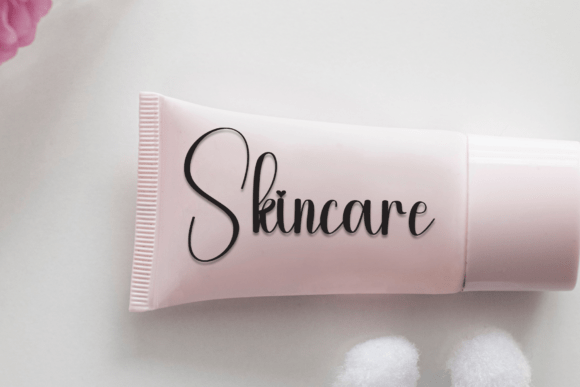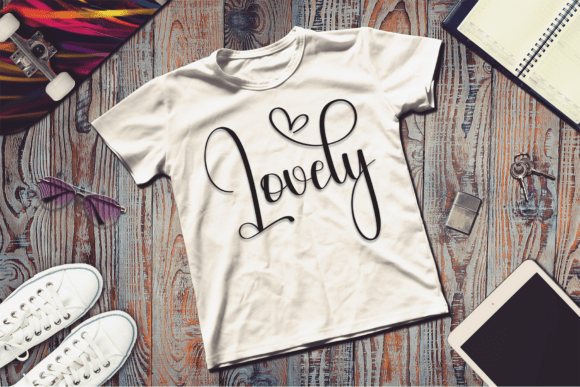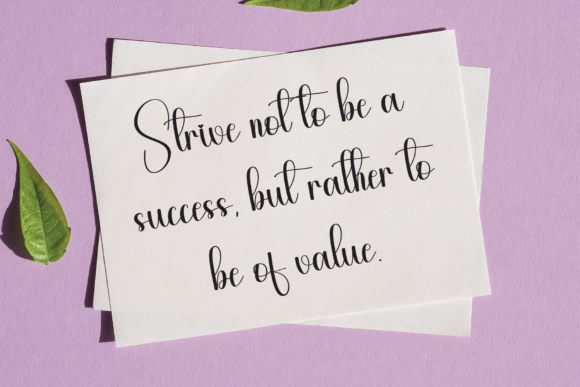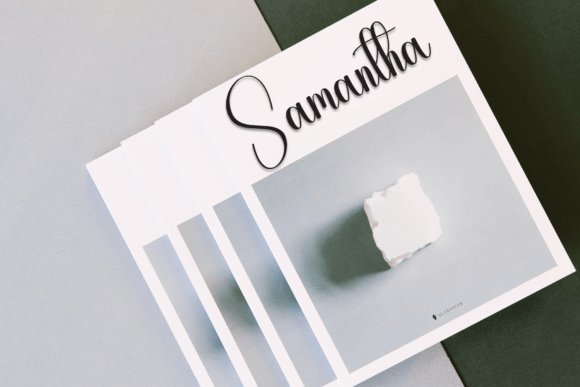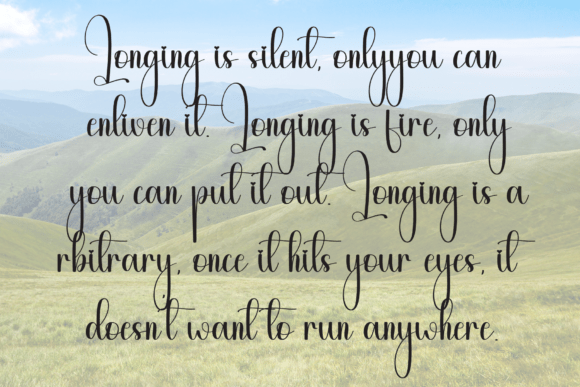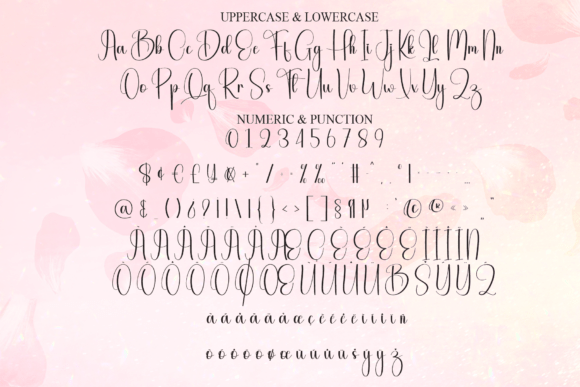
The Allure of the Barbie Font: Adding Elegance to Your Designs
Have you ever been browsing through a magazine or scrolling through social media and stumbled upon a design that just stops you in your tracks? Maybe it was a beautifully crafted invitation, a logo that perfectly captured a brand’s personality, or a social media post that radiated charm and sophistication. Whatever it was, you probably couldn’t help but wonder, “How did they do that?” For many designers, the answer lies in the Barbie Font – a stylish handwritten script font that adds a touch of elegance and playfulness to any project.
The Barbie Font is a versatile tool that brings warmth, sophistication, and creativity to invitations, branding, and social media. With its flowing curves and natural rhythm, it’s perfect for adding a personal touch to any design. Whether you’re a seasoned designer or just starting out, the Barbie Font is a valuable asset that can help you elevate your work and make a lasting impression on your audience.
Barbie Font Key Features
- Font Family: The Barbie Font is a custom, cursive script font designed specifically for the Barbie brand.
- Size: Supports a wide range of font sizes, from 6pt to 72pt, making it suitable for various design applications.
- Resolution: Designed for high-resolution displays, with a minimum recommended resolution of 96 DPI (dots per inch).
- Unique Characteristics: The font features a playful, whimsical feel, with intricate details and flourishes that evoke the iconic Barbie brand.
- Language Support: Supports a wide range of languages, including Latin, Greek, Cyrillic, and many others, making it a versatile choice for global design projects.
Designer Review: Barbie Font
The Barbie Font, designed by Matthew Carter, is a delightful and playful typeface. Here are some aspects where it truly shines: ✨
- Its unique and whimsical style captures the essence of the iconic Barbie brand.
- The font is highly legible, even at small sizes, making it suitable for various applications, such as packaging, advertising, and editorial content.
- The letterforms are carefully crafted to convey a sense of elegance and sophistication, while still maintaining a childlike charm.
- The font may not be ideal for more formal or professional settings, as its playful nature might come across as unprofessional.
- The font’s extensive character set might make it less suitable for certain languages or character sets.
- The font’s complexity might require additional processing power, which could impact performance in certain applications.
Overall, I think the Barbie Font is a wonderful choice for projects that require a touch of whimsy and playfulness. While it may have some limitations, its unique style and high legibility make it a great addition to any designer’s toolkit.
The Barbie Font is perfect for creating playful and whimsical designs, such as:
- Children’s party invitations
- Toy packaging designs
- Social media graphics
- Printable art and crafts
Remember to adjust the font size and style to your liking, and experiment with different combinations to get the most out of the Barbie Font.
Alternatives to Barbie Font
Great Vibes Font is a modern, cursive script font that is perfect for adding a touch of elegance to designs. It is ideal for use in headings, titles, and quotes. Great Vibes Font is more versatile than Barbie Font as it has a wider range of uses, from fashion and beauty to food and travel.
Comparison to Barbie Font: Great Vibes Font has a more sophisticated and mature feel compared to the playful and childlike vibe of Barbie Font.
Carolyna Pro Font is a elegant, modern script font that is perfect for use in high-end designs. It is ideal for use in luxury branding, fashion, and beauty. Carolyna Pro Font is more refined and sophisticated than Barbie Font, making it perfect for designs that require a touch of glamour.
Comparison to Barbie Font: Carolyna Pro Font has a more polished and refined feel compared to the playful and youthful vibe of Barbie Font.